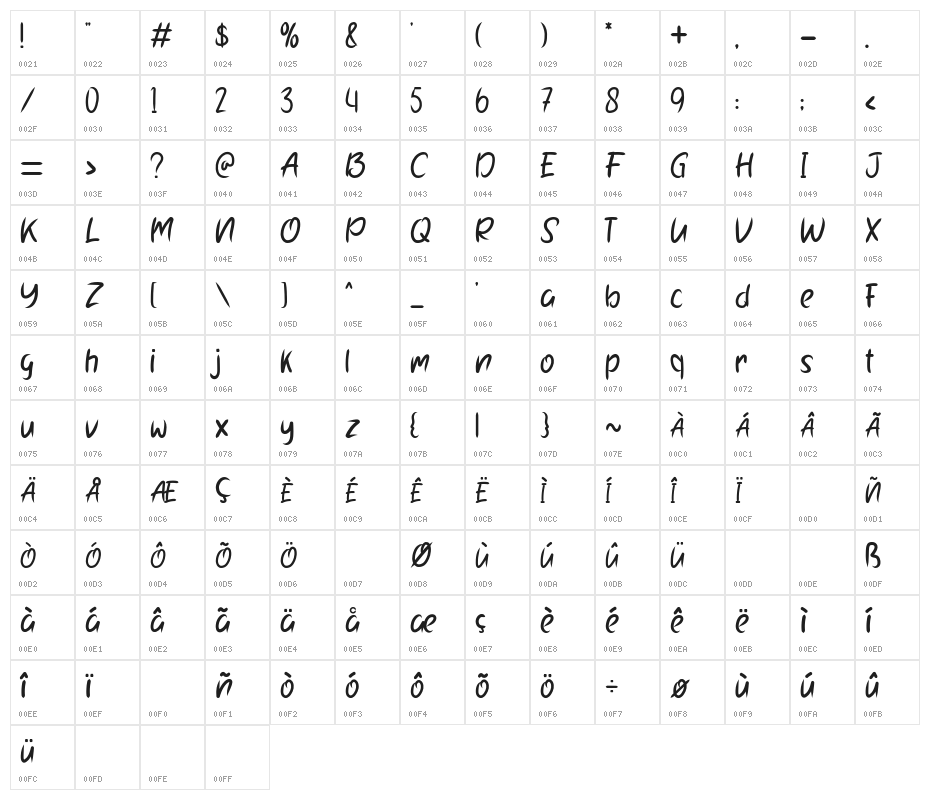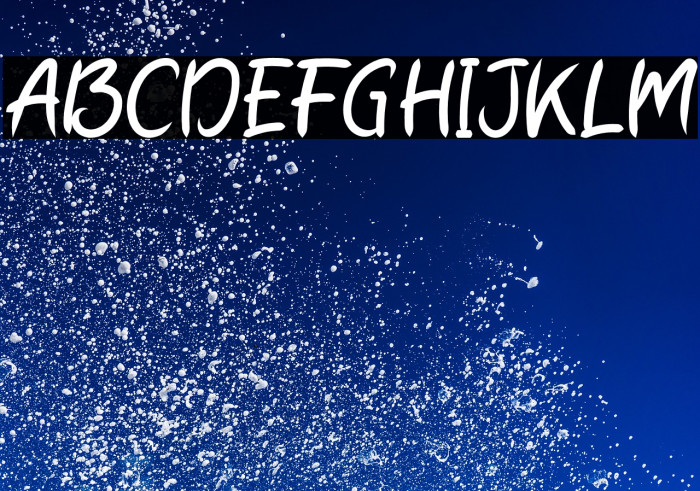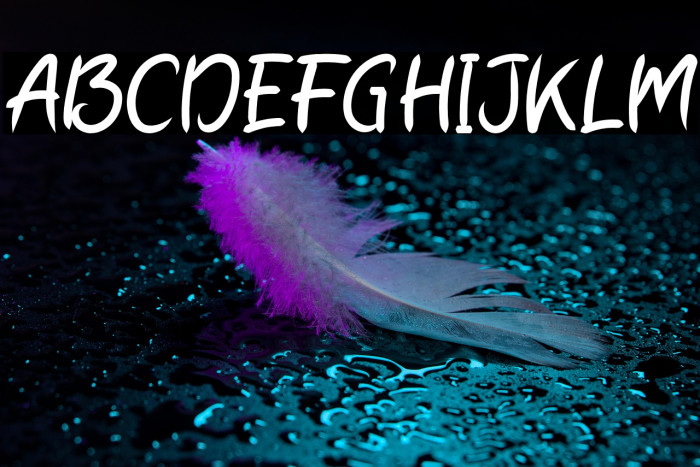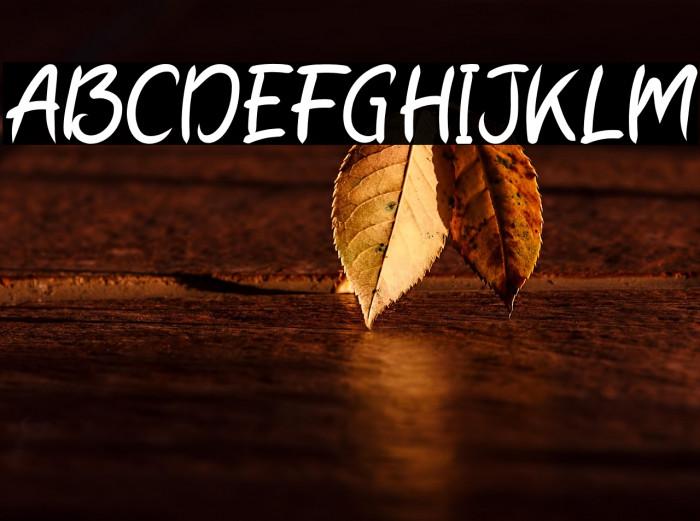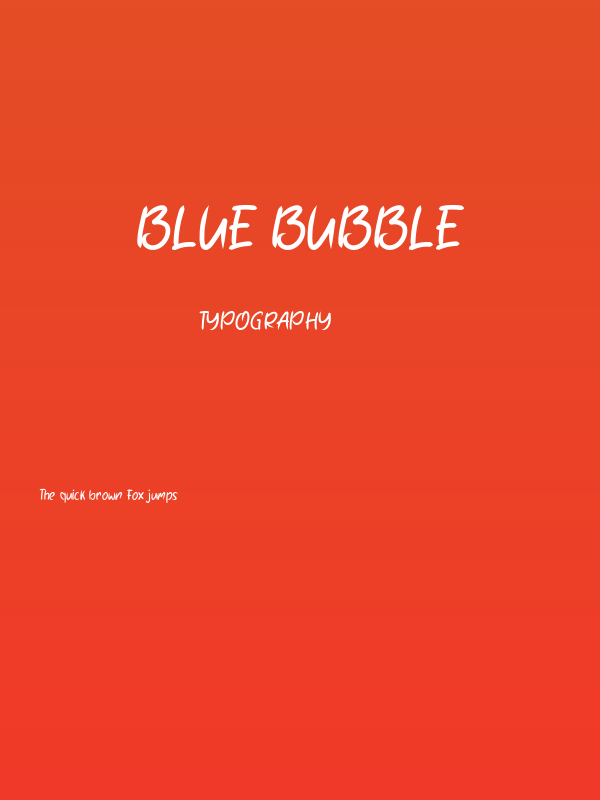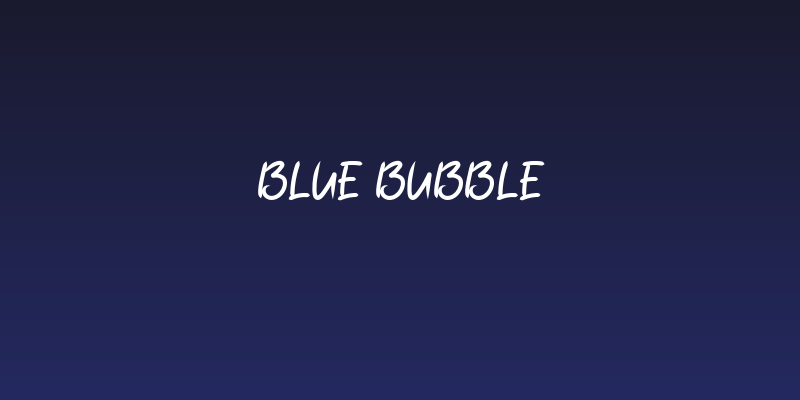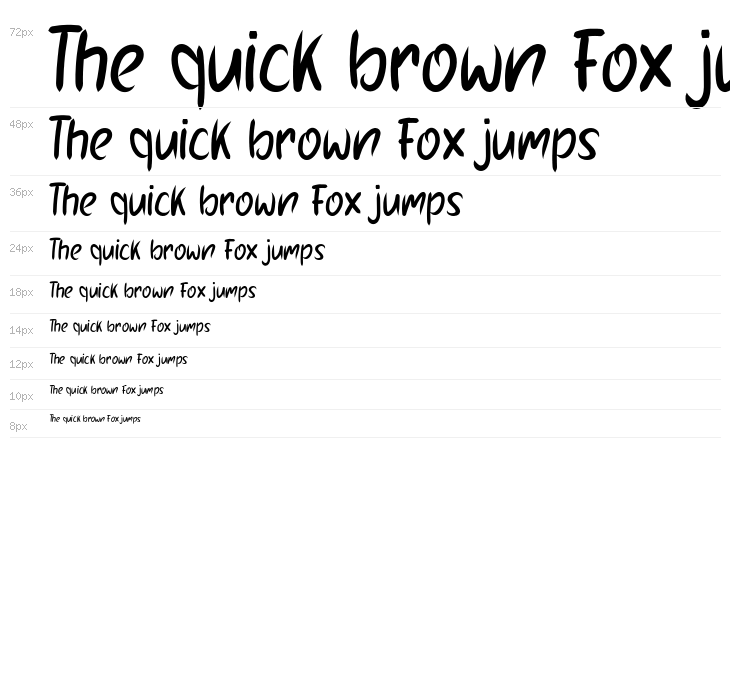
Blue Bubble Font
Blue Bubble Description
This font features a playful and dynamic style, characterized by its bold and slightly irregular strokes that give it a handwritten appearance. The letters are slightly slanted, adding a sense of movement and energy. The uppercase and lowercase letters maintain a consistent style, with rounded edges and a casual flair. The numbers and special characters follow the same aesthetic, making the font versatile for various uses. Its unique style makes it suitable for creative projects that require a personal touch.
| Overall Style | Playful, Casual |
| Proposed Projects | Ideal for greeting cards, children's books, playful branding, and social media graphics. |